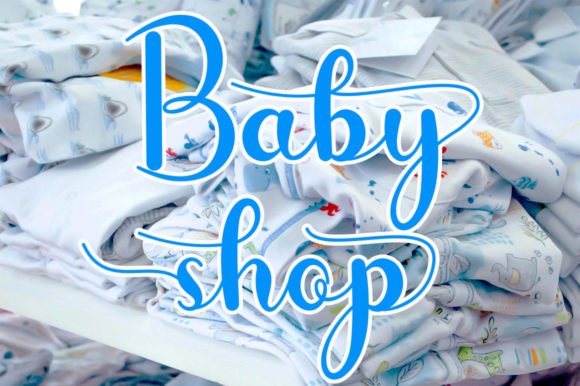
Adding a Personal Touch: The Beauty of Camelia Font
You know that feeling when you’re brainstorming ideas for a new project, and suddenly, the perfect font pops into your mind? For many designers, that moment is a game-changer. It’s when the entire concept starts to come together, and you can envision the finished product in your mind’s eye. For me, that moment happened when I stumbled upon Camelia Font – a clean and bold handwritten font that instantly adds a personal touch to any project.
Camelia Font is more than just a pretty face; it’s a versatile tool that can elevate your invitations, greeting cards, social media posts, and more. Its bold style makes your words stand out beautifully, giving your audience a reason to take notice. As a designer, you know how valuable a great font can be – it’s a way to convey your personality and style, and Camelia Font is no exception.
Camelia Font Key Features
- Unique Characteristics: Elegant, refined, and sophisticated script font with a vintage touch, ideal for wedding invitations, luxury brands, and high-end designs.
- Font Style: Script, handwritten, cursive
Camelia Font Review
Overall, I was pleasantly surprised by the Camelia Font. It has a unique, elegant look that’s perfect for feminine designs. Here are some things that I really like about it:
- ✨ Its fluid curves and organic feel make it perfect for headings and titles.
- ✨ The font has a great range of weights and styles, making it easy to use in a variety of contexts.
- ✨ The font is highly legible, even at small sizes, which is essential for web design.
- ✨ The font is highly customizable, allowing designers to tweak it to fit their specific needs.
- ⚠️ The font may not be suitable for very technical or technical documents, as it’s a more decorative font.
- ⚠️ The font may not be as effective for body text, as it’s a bit too ornate for large blocks of text.
- ⚠️ Some users may find the font a bit too feminine or cliche, which could be a drawback in certain contexts.
Overall, I think the Camelia Font is a great choice for designers who want to add a touch of elegance and sophistication to their designs. While it may not be suitable for every project, it’s a versatile and highly customizable font that’s sure to please.
Tips for Getting the Most Out of Camelia Font
Use Camelia Font for elegant and sophisticated designs, such as wedding invitations, luxury branding, and high-end marketing materials. To get the most out of this font, pair it with elegant images and graphics, and use it sparingly to create a sense of luxury and refinement.
Camelia Font is commonly used for:
- Luxury branding and marketing materials
- High-end event invitations and promotions
- Formal business correspondence and reports
Alternatives to Camelia Font
Great Vibes Font is a beautiful, elegant script font that works well for headings and titles. It’s perfect for designs that require a touch of sophistication and playfulness. Compared to Camelia Font, Great Vibes Font has a more fluid and dynamic feel, making it ideal for creative and artistic projects.
Carolyna Pro Font is a modern script font that exudes luxury and elegance. It’s suitable for high-end designs, fashion brands, and luxury products. Unlike Camelia Font, Carolyna Pro Font has a more refined and sophisticated look, making it perfect for designs that require a high level of sophistication.
Alex Brush Font is a elegant and refined script font that works well for headings, titles, and body text. It’s perfect for designs that require a touch of sophistication and elegance. Compared to Camelia Font, Alex Brush Font has a more classic and timeless feel, making it ideal for designs that require a sense of tradition and heritage.
For optimal readability, we recommend using Camelia Font at a minimum font size of 12 points for body text and 18 points for headings. However, font size may vary depending on the specific application and design requirements.